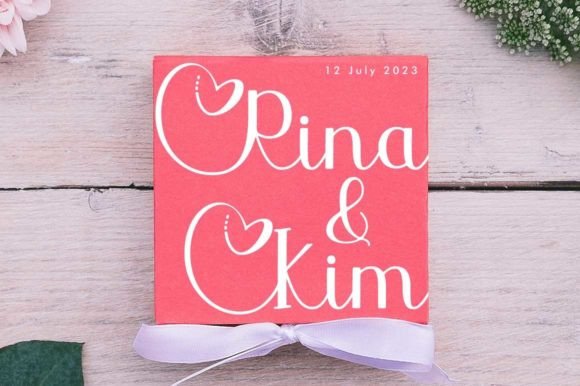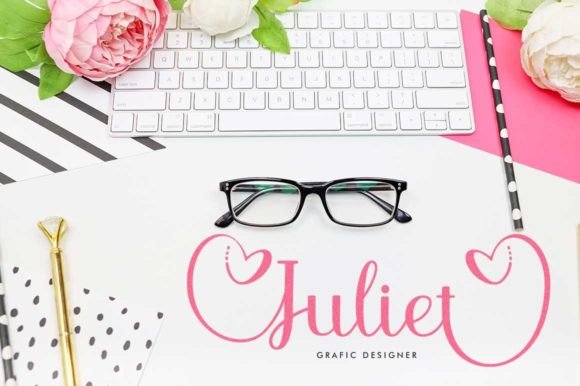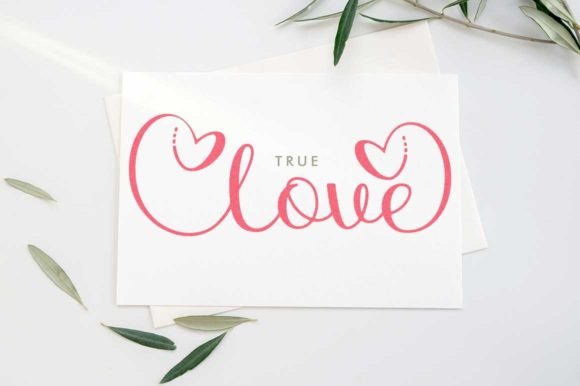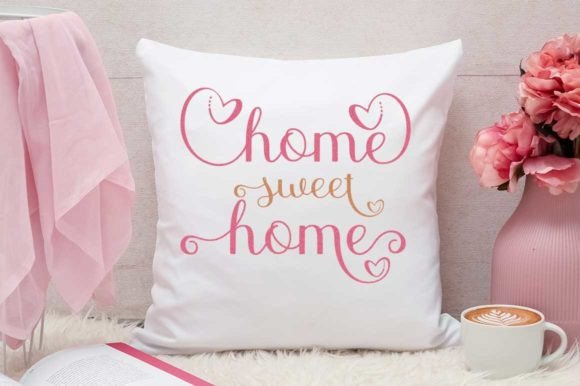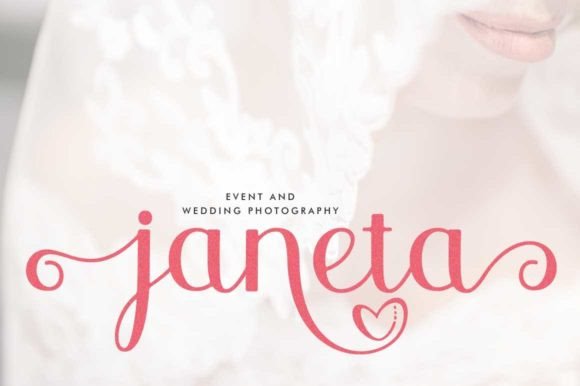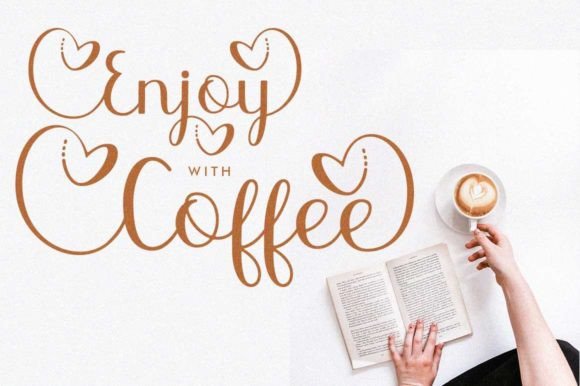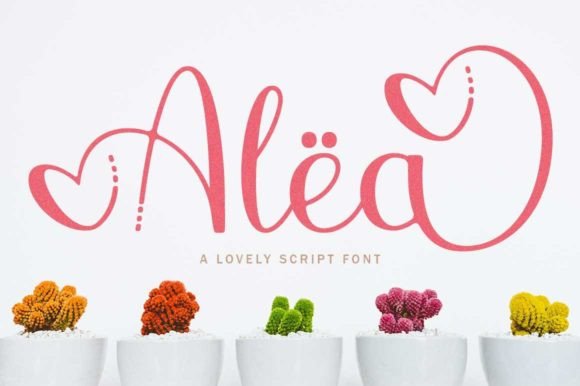
Alea Font: The Typography of Love and Romance
In the world of typography, few fonts capture the essence of love and romance as beautifully as Alea Font. With its delicate strokes and graceful curves, each letter comes alive with heart-shaped tails, expressing the language of love in a way that words alone cannot. Whether you’re a designer, crafter, or simply someone who loves to write from the heart, Alea Font is the perfect choice for infusing your creations with a romantic flair.
The Design of Alea Font
Alea Font is a unique and captivating typeface that features heart-shaped tails on each letter. These tails add a playful and whimsical touch to the font, making it perfect for expressing love and affection. The delicate strokes and graceful curves of the letters themselves are elegant and refined, giving the font a sophisticated feel that’s perfect for a wide range of design applications.
One of the standout features of Alea Font is its versatility. It can be used in a variety of contexts, from formal wedding invitations and romantic love notes to social media posts and DIY craft projects. The font’s romantic charm is sure to captivate your audience and leave a lasting impression.
Perfect for Wedding and Love-Related Designs
When it comes to designing wedding invitations, Alea Font is an obvious choice. The font’s elegant, cursive style and heart-shaped tails evoke the romance and magic of the special day. But Alea Font is more than just a pretty face – it’s also highly legible, making it perfect for use in a variety of design applications, from save-the-date cards to wedding programs.
But Alea Font isn’t just limited to wedding designs. It’s also perfect for creating heartfelt love notes, romantic gift tags, and other expressions of affection. Whether you’re a designer creating custom stationery or a crafty individual making handmade gifts, Alea Font is the perfect tool for adding a touch of romance to your creations.
Bringing a Heartfelt Warmth to Your Designs
So what sets Alea Font apart from other fonts on the market? The answer lies in its ability to bring a heartfelt warmth to every message. When you use Alea Font in your designs, you’re not just adding a pretty font – you’re infusing your words with a sense of love and connection.
This is especially important in today’s digital age, where so much of our communication is reduced to cold, impersonal text. Alea Font is a breath of fresh air, reminding us of the power of handwritten words and the emotions they evoke. Whether you’re creating digital designs or handmade crafts, Alea Font is the perfect way to add a touch of warmth and personality to your work.
Tips for Using Alea Font in Your Designs
So how can you get the most out of Alea Font in your designs? Here are a few tips to get you started:
- Use Alea Font in combination with other romantic design elements, such as floral patterns or watercolor illustrations, to create a cohesive and eye-catching design.
- Don’t be afraid to mix and match Alea Font with other fonts to create a unique and visually appealing design.
- Consider using Alea Font in digital designs, such as social media graphics or email newsletters, to add a touch of personality and whimsy.
In conclusion, Alea Font is a unique and captivating typeface that’s perfect for designers, crafters, and anyone who loves to express themselves through words. With its delicate strokes, graceful curves, and heart-shaped tails, Alea Font is the perfect choice for infusing your designs with a romantic flair. Whether you’re creating wedding invitations, love notes, or simply want to add a touch of warmth to your designs, Alea Font is the perfect tool for bringing your words to life.
So why settle for ordinary fonts when you can add a touch of love and romance to your designs with Alea Font? Let your words dance across the page, leaving a trail of hearts behind, and watch as this beautiful font brings a heartfelt warmth to every message.